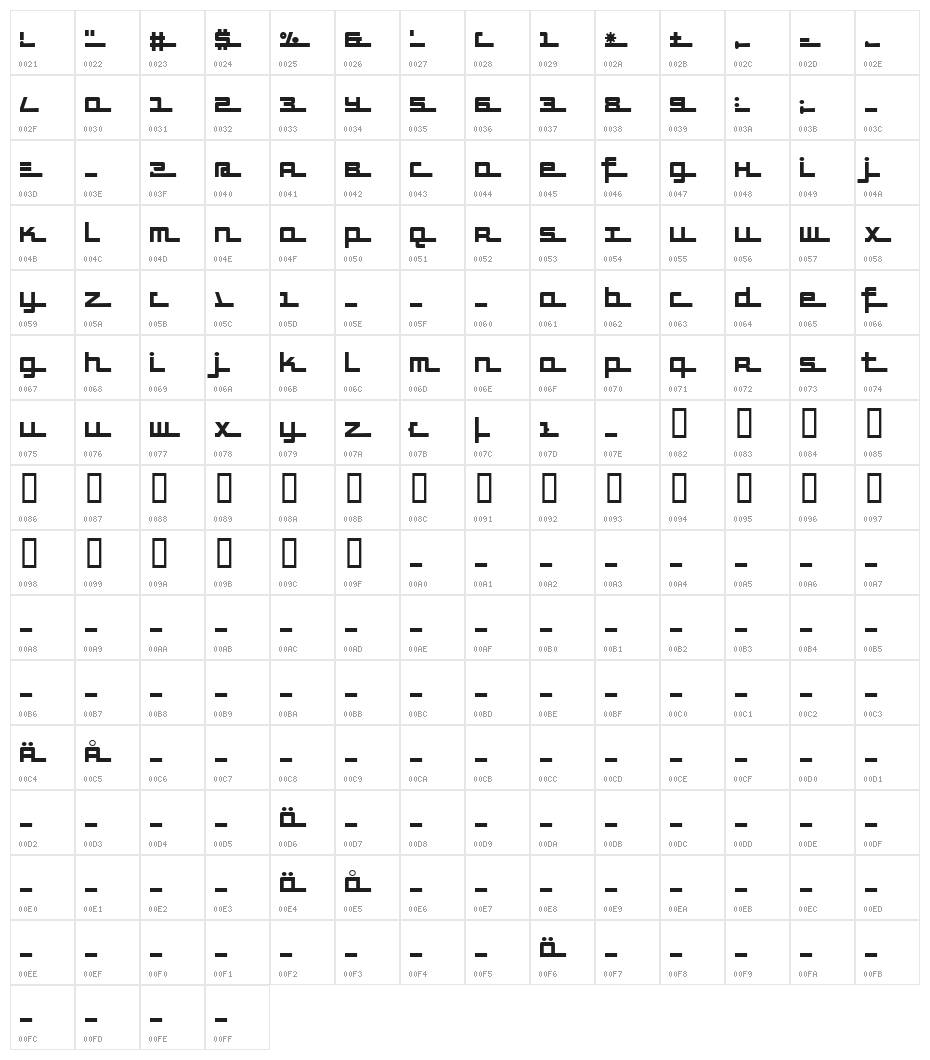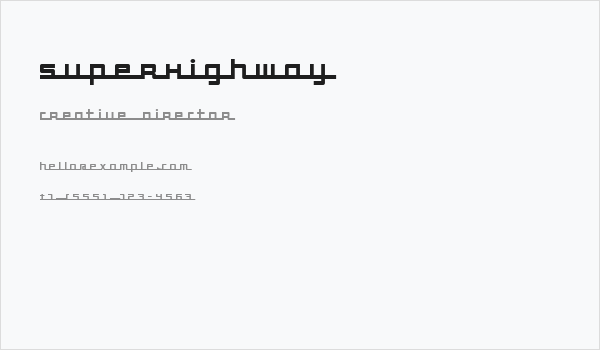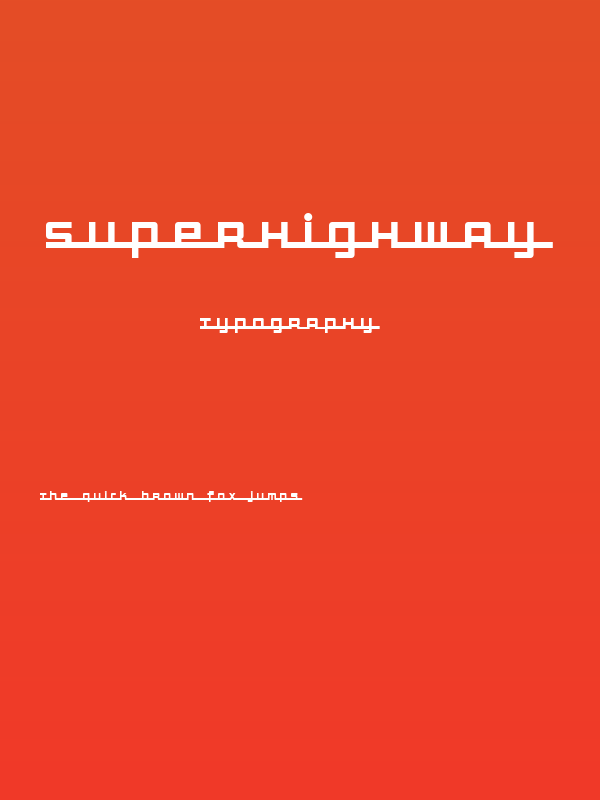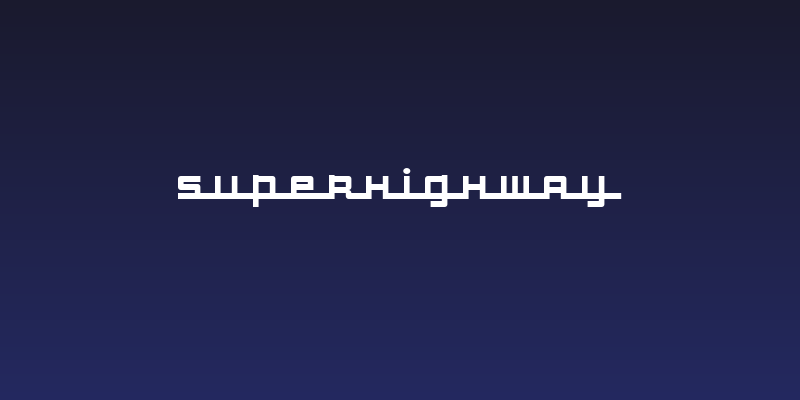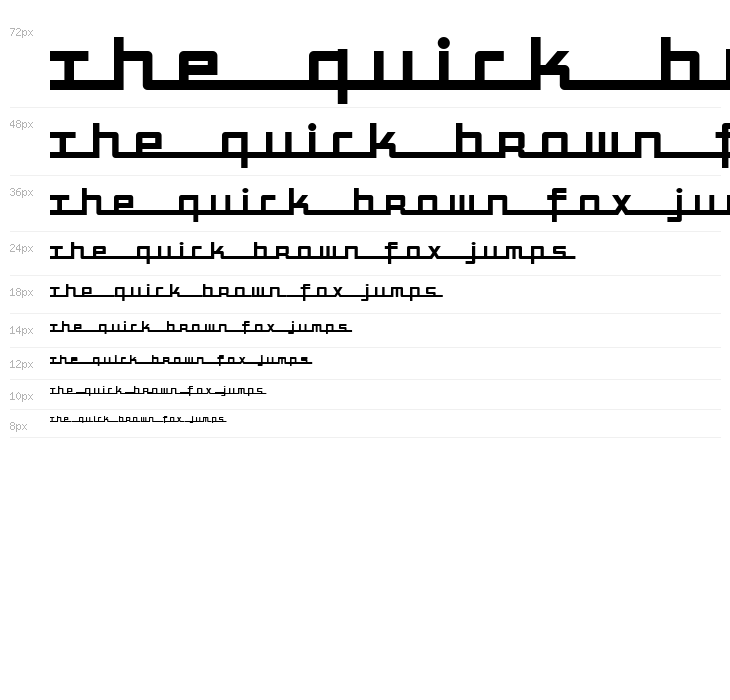
SuperHighway Font
SuperHighway Description
This font features a futuristic and geometric design, characterized by its rigid, angular lines and consistent stroke width. The letters are constructed with a grid-like precision, giving it a digital or technological feel. The uppercase and lowercase letters maintain a uniform height, enhancing its modern aesthetic. The numbers and special characters follow the same structured style, ensuring a cohesive look across all glyphs. This font's unique design makes it stand out, particularly in digital and tech-related contexts.